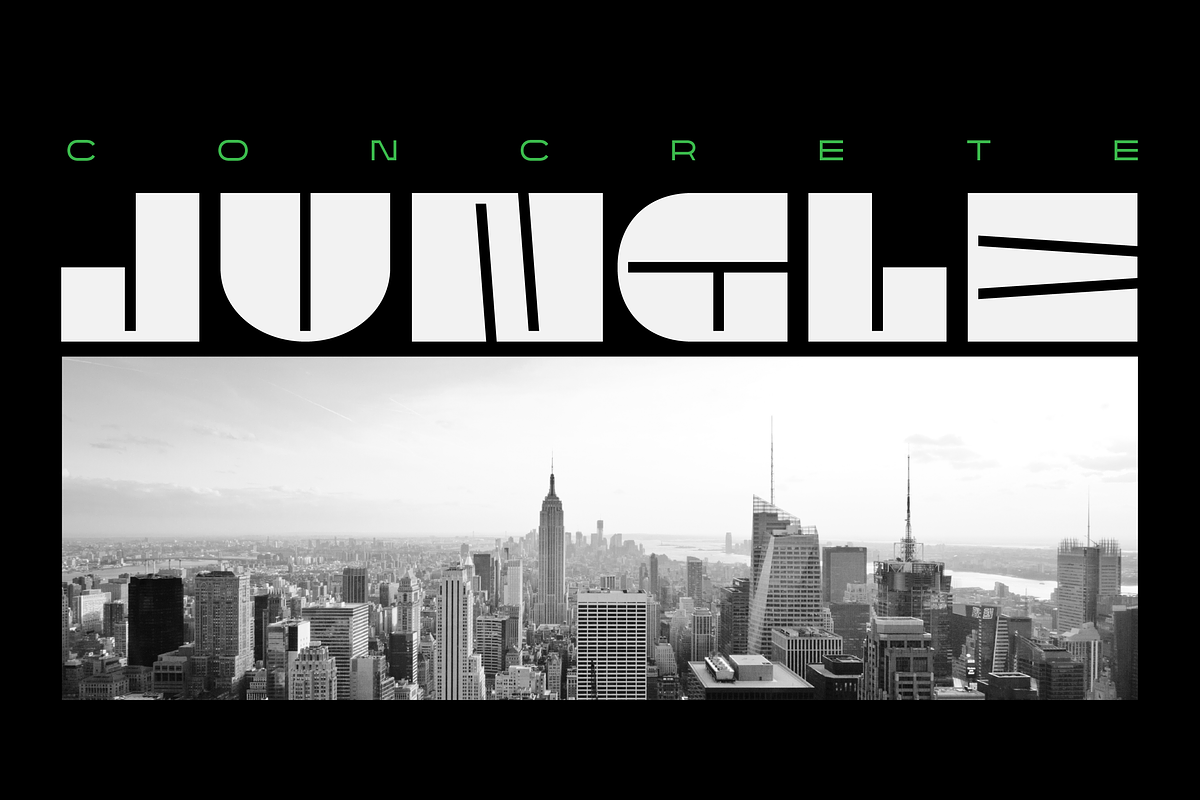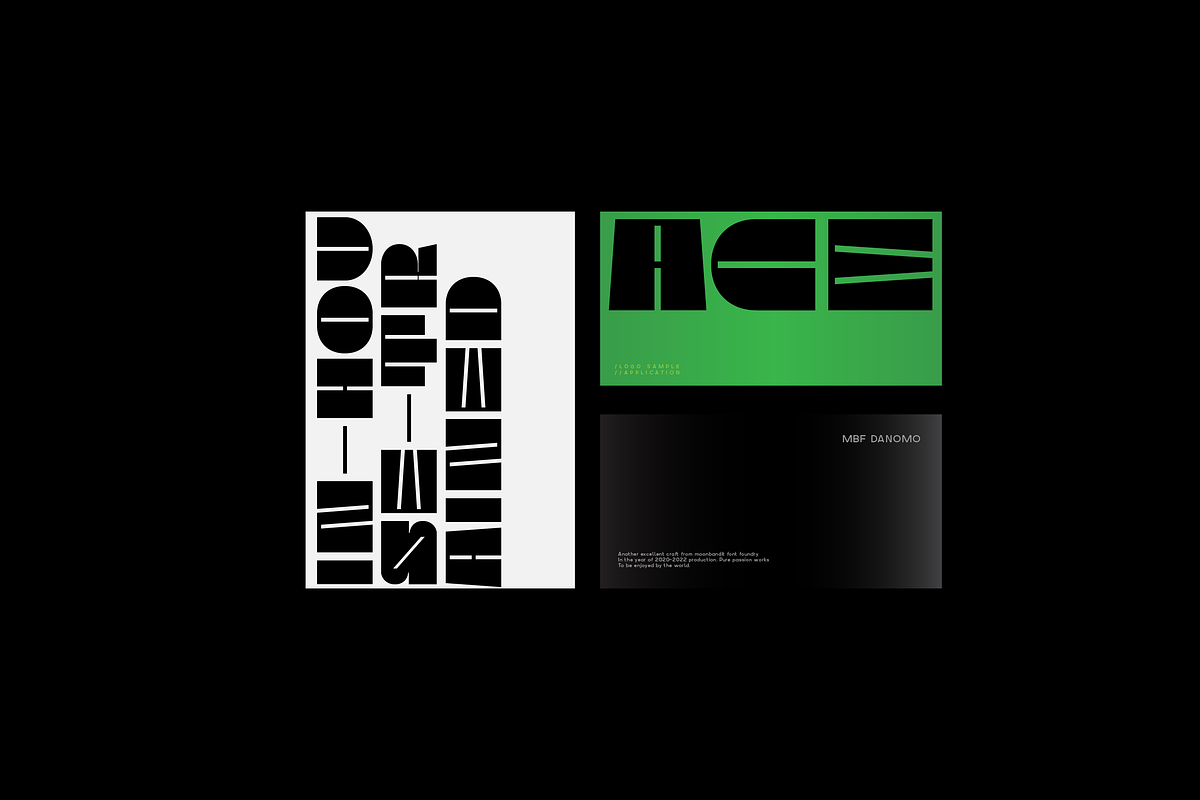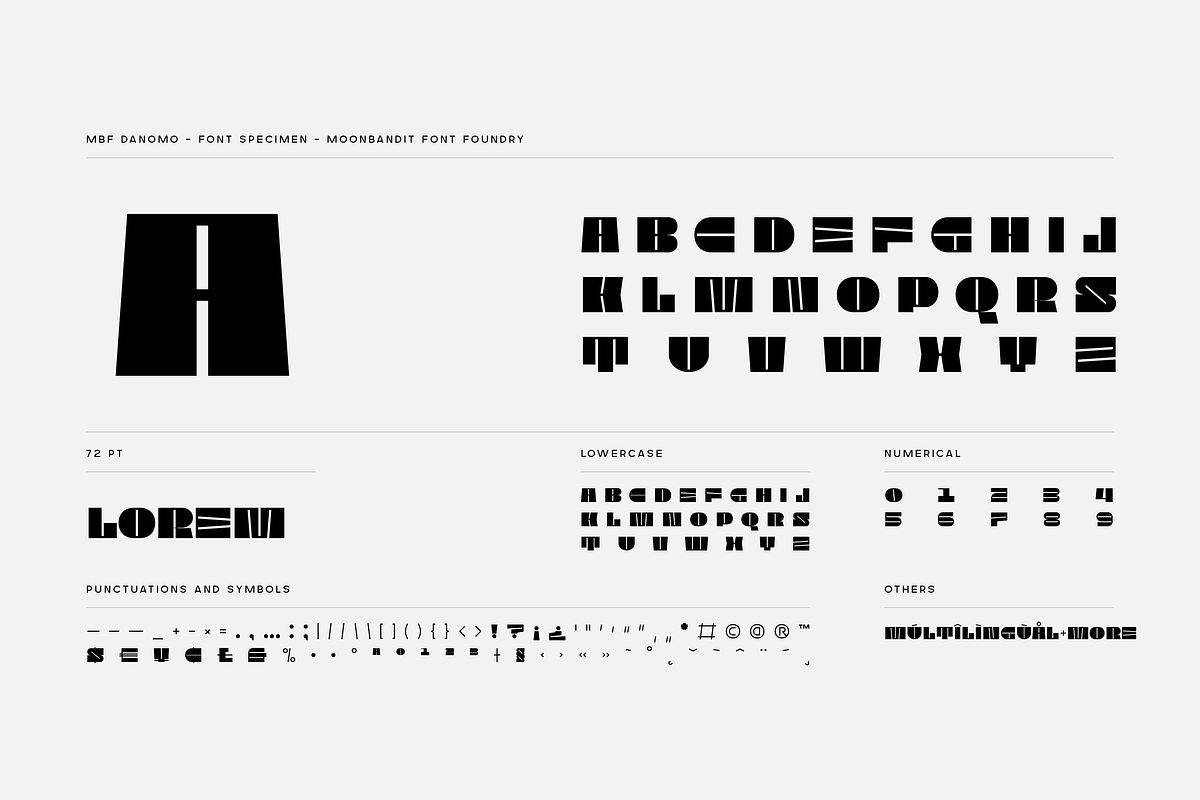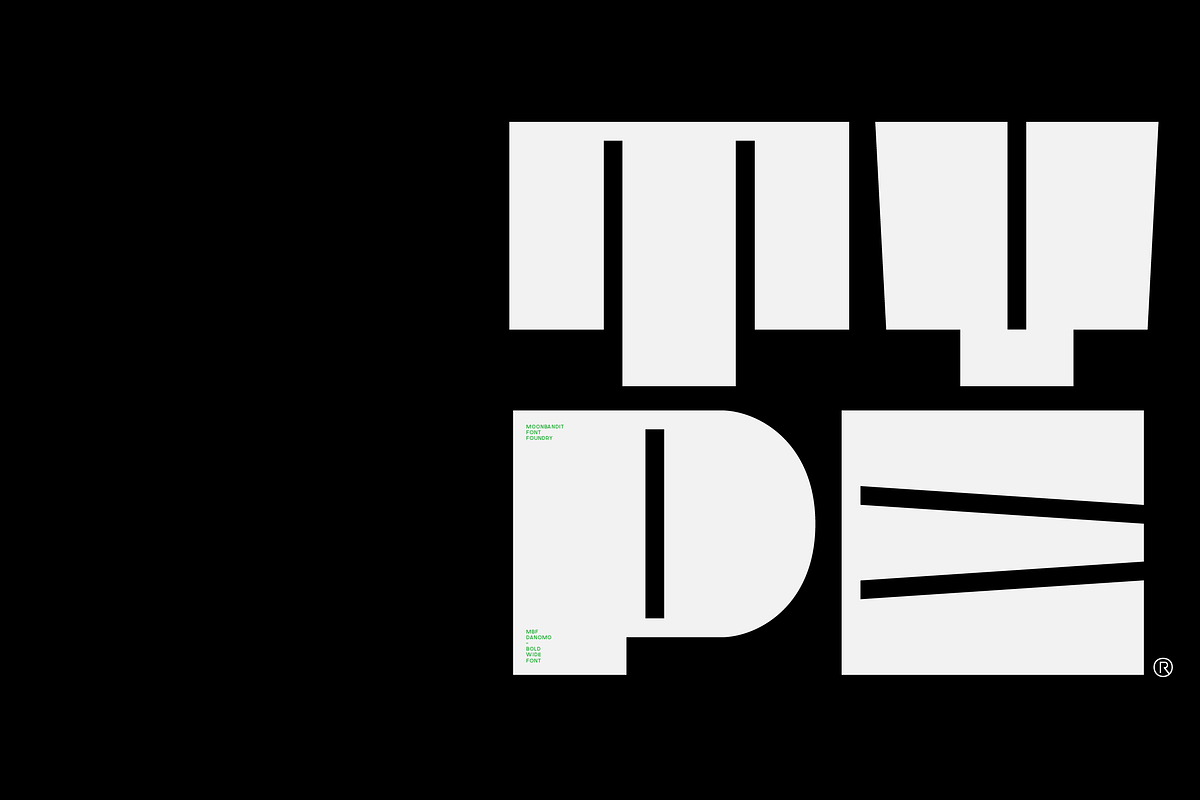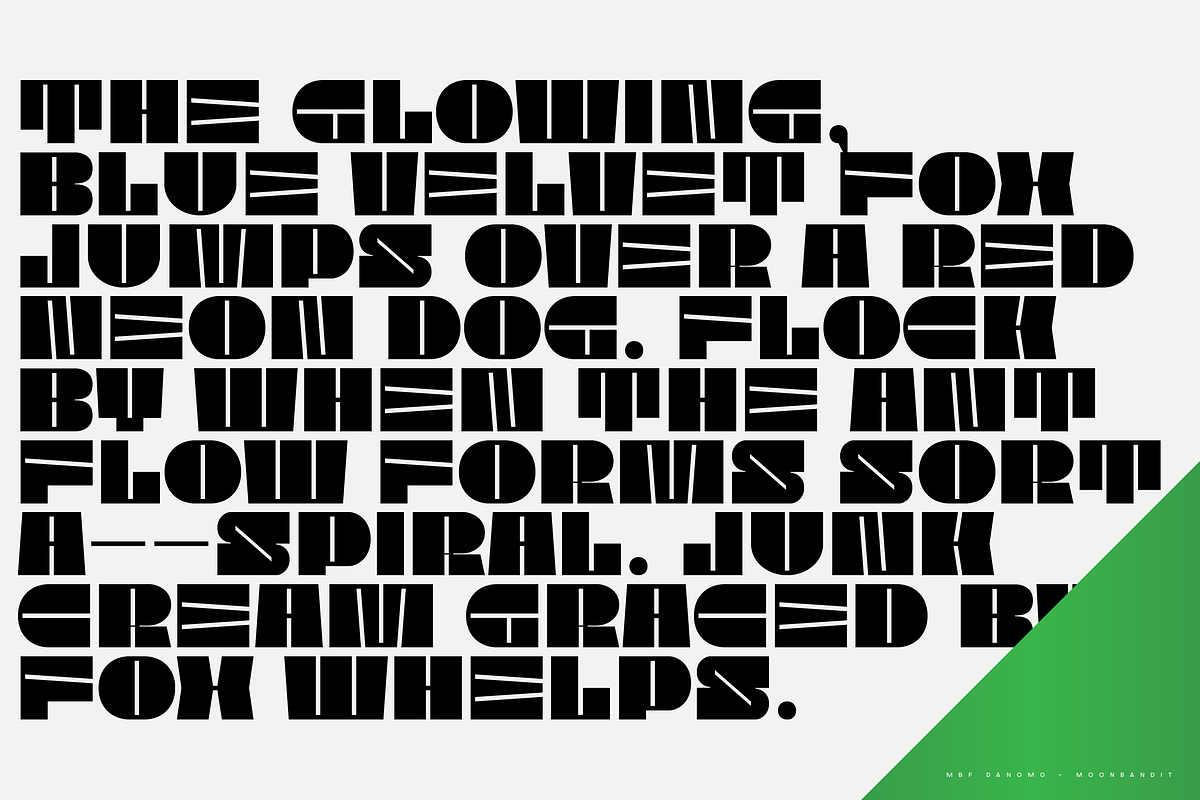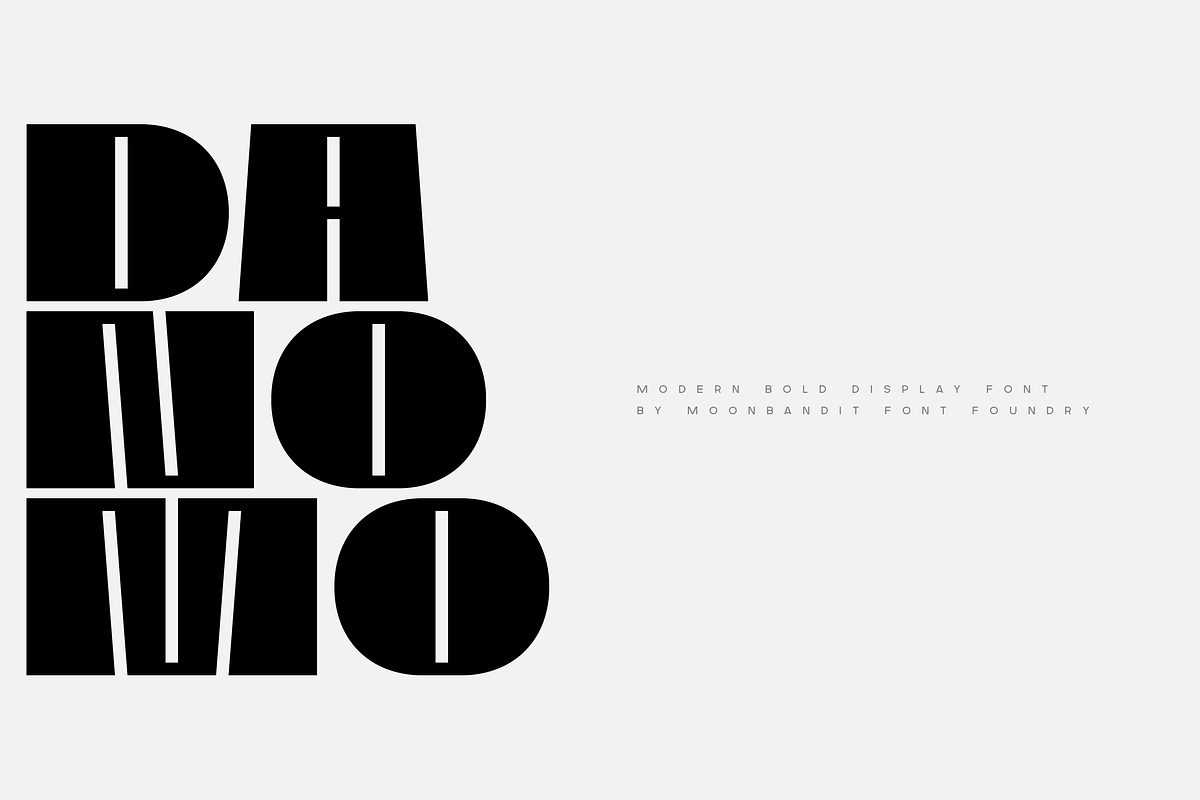
MBF Danomo
Danomo is a modern take on the extra bold typeface design. With extra big and wide body and extra small counter makes this font unique and grabs attention. Best usage on logo, poster, display, headline, t-shirt design and many more.